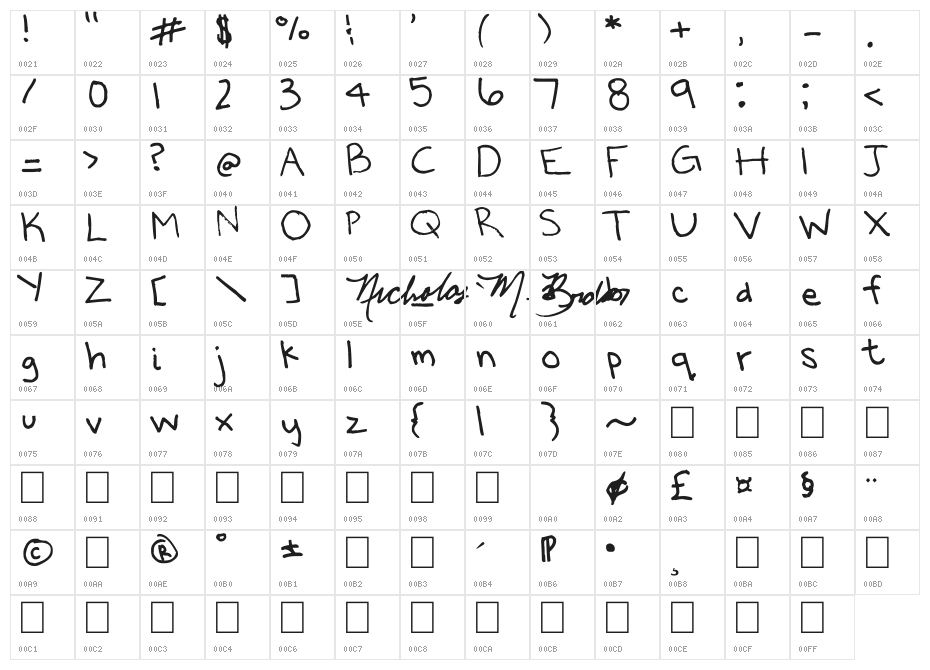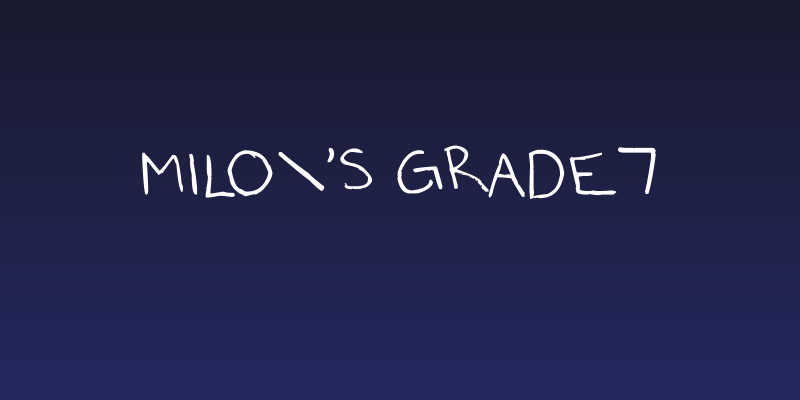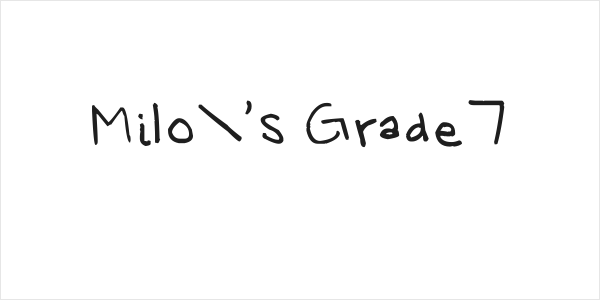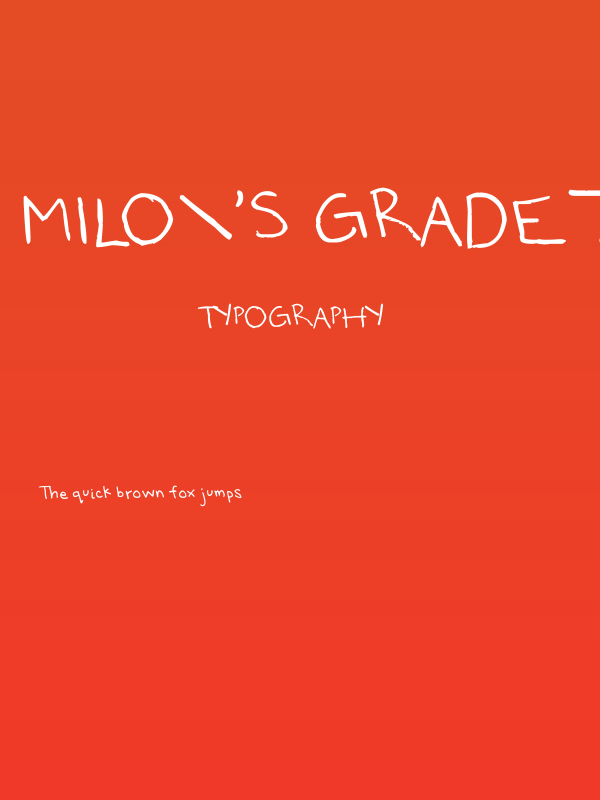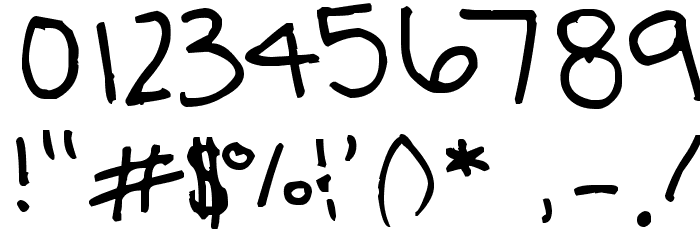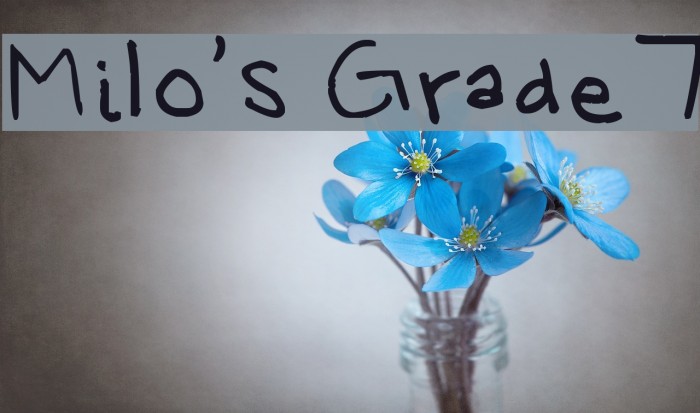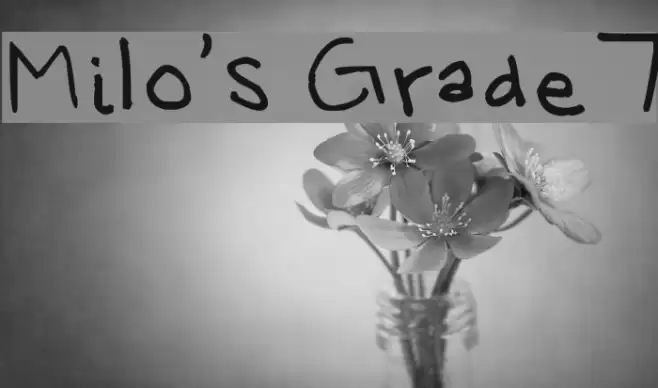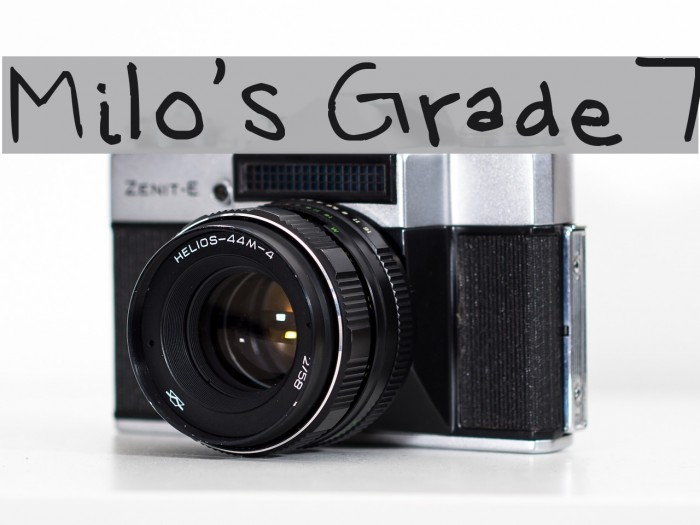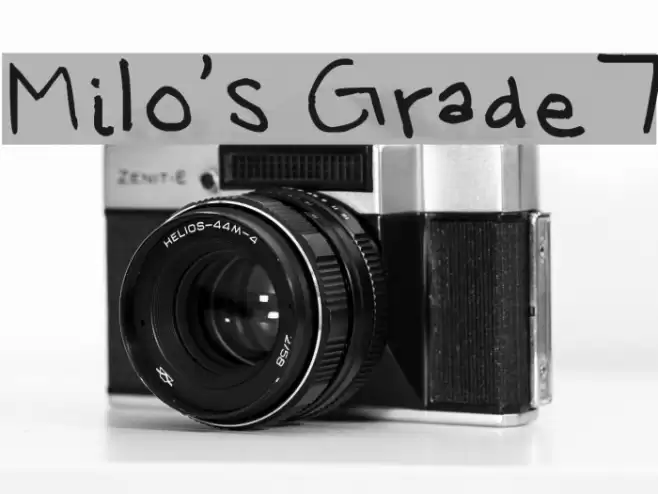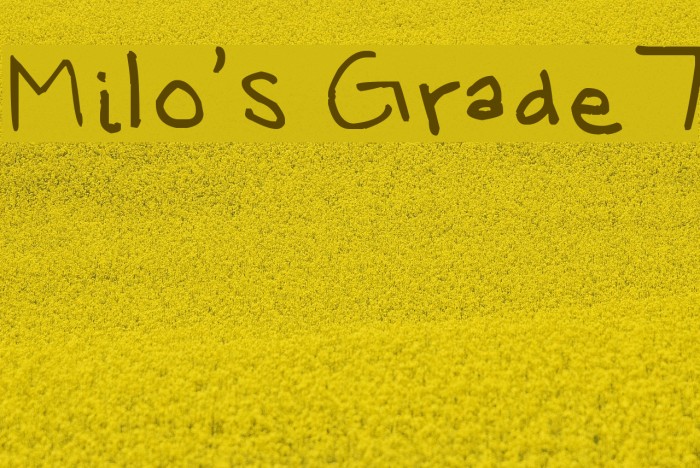
Milo's Grade 7 Font
Milo's Grade 7 Description
This font exudes a playful and informal style, characterized by its hand-drawn appearance. The letters are uneven and slightly tilted, giving it a casual and approachable feel. The strokes are bold and consistent, with a slight wobble that adds to its charm. The uppercase and lowercase letters maintain a consistent style, while the numbers and special characters follow the same playful theme. This font is perfect for projects that require a personal touch or a sense of whimsy.
| Overall Style | Casual, Playful |
| Use Case | Headlines, Informal text, Creative projects |
| Proposed Projects | Ideal for children's books, casual invitations, personal blogs, and creative posters. |